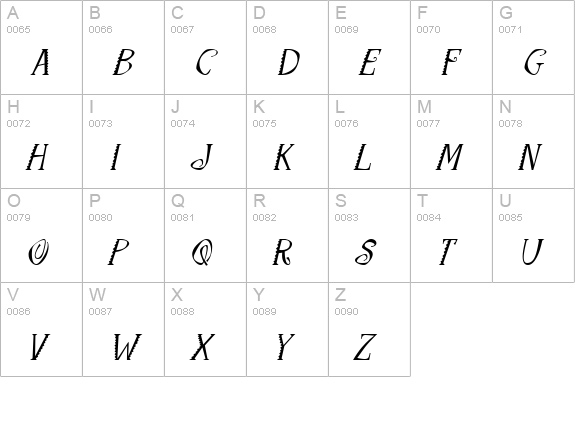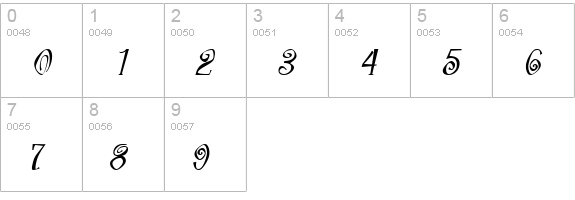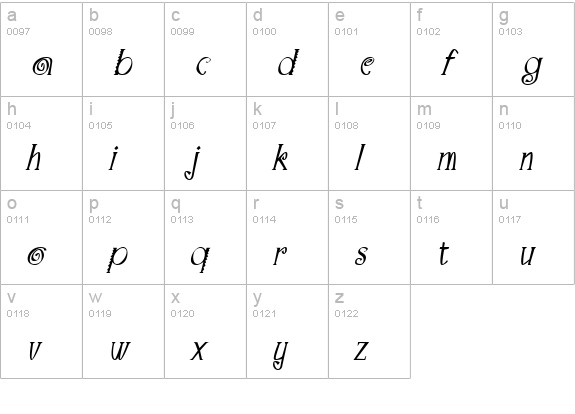
Maraca Italic is a distinctive, italic variant in the Maraca typeface family \xE2\x80\x94 well suited to design and typography projects.
Introducing Maraca Italic, a font that exudes elegance and sophistication. Its graceful curves and slanted design add a touch of artistic flair to any project. Maraca Italic effortlessly combines classic charm with a modern twist, making it the perfect choice for branding, invitations, and editorial designs. This versatile font is not only visually appealing but also highly legible, ensuring that your message is conveyed with clarity and finesse. Its unique italic style adds a sense of drama and movement, making each letter a work of art in itself. But what sets Maraca Italic apart is its accessibility. Unlike many premium fonts, Maraca Italic is freely available to download at FontsMarket.com. This means that you can use this stunning font without worrying about breaking the bank. Whether you are a professional designer or an aspiring artist, Maraca Italic gives you the opportunity to elevate your projects without any financial limitations. Embrace the beauty and versatility of Maraca Italic and let your creativity soar. With its free availability and exceptional design, this font is a must-have addition to your design toolkit. Download Maraca Italic today at FontsMarket.com and unlock a world of endless possibilities.